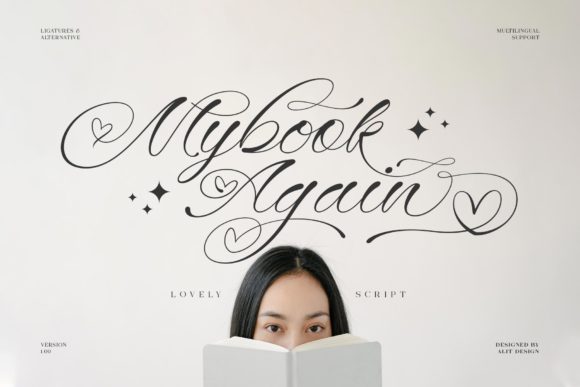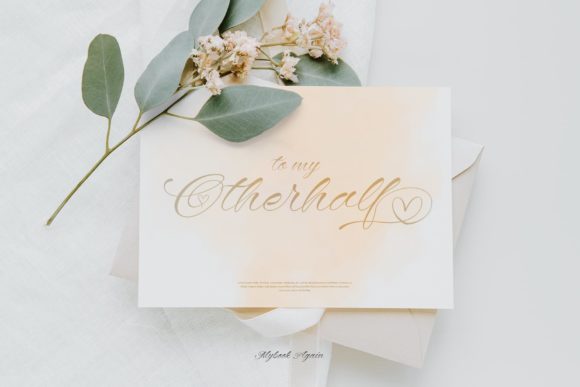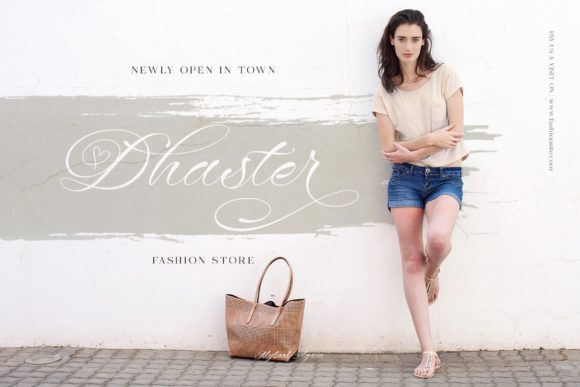
About Mybook Again Font
Mybook Again feels equally chic and elegant. It looks beautiful on wedding invitations, thank you cards, quotes, greeting cards, logos, business cards and every other design which needs a customized touch.